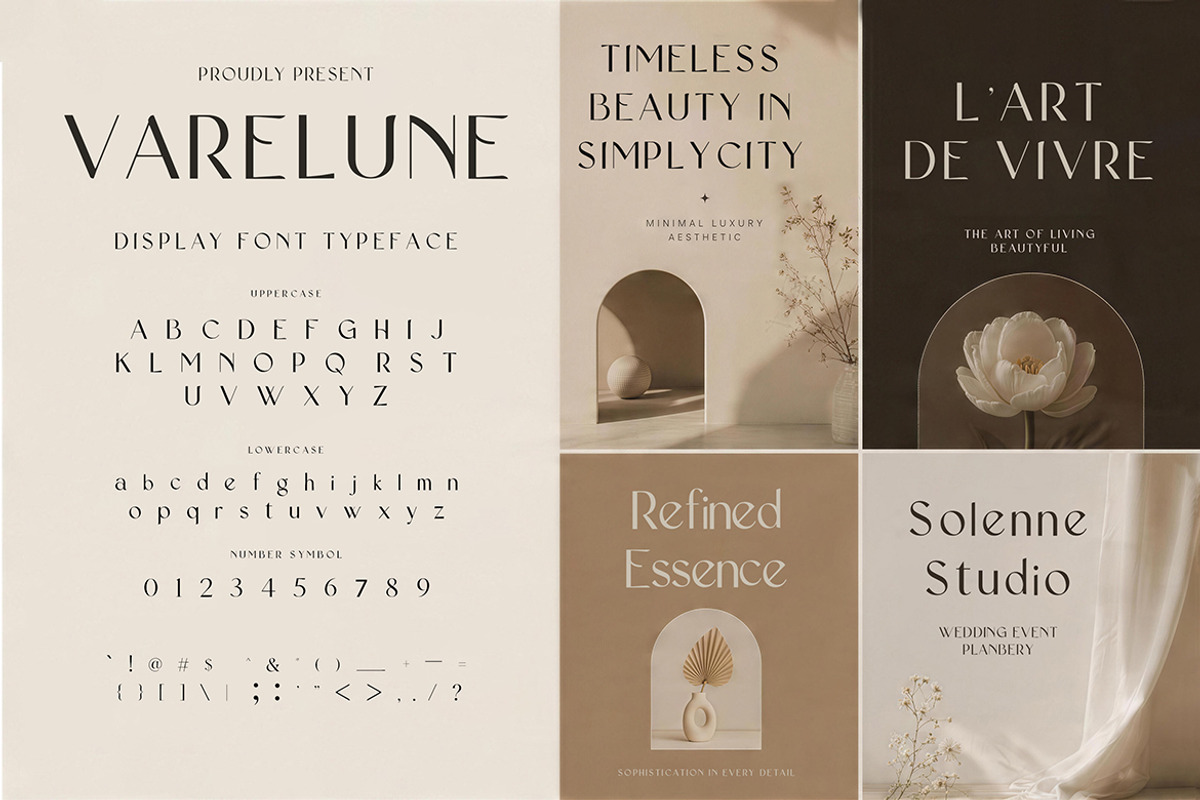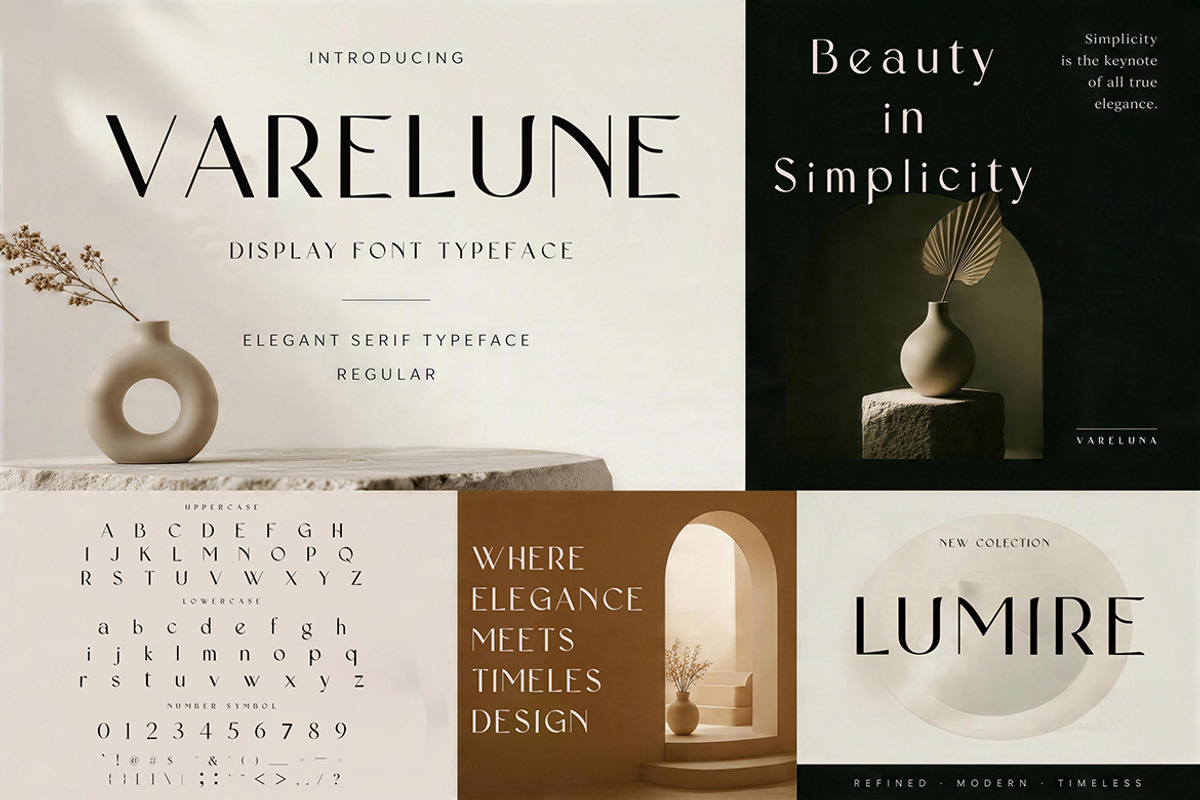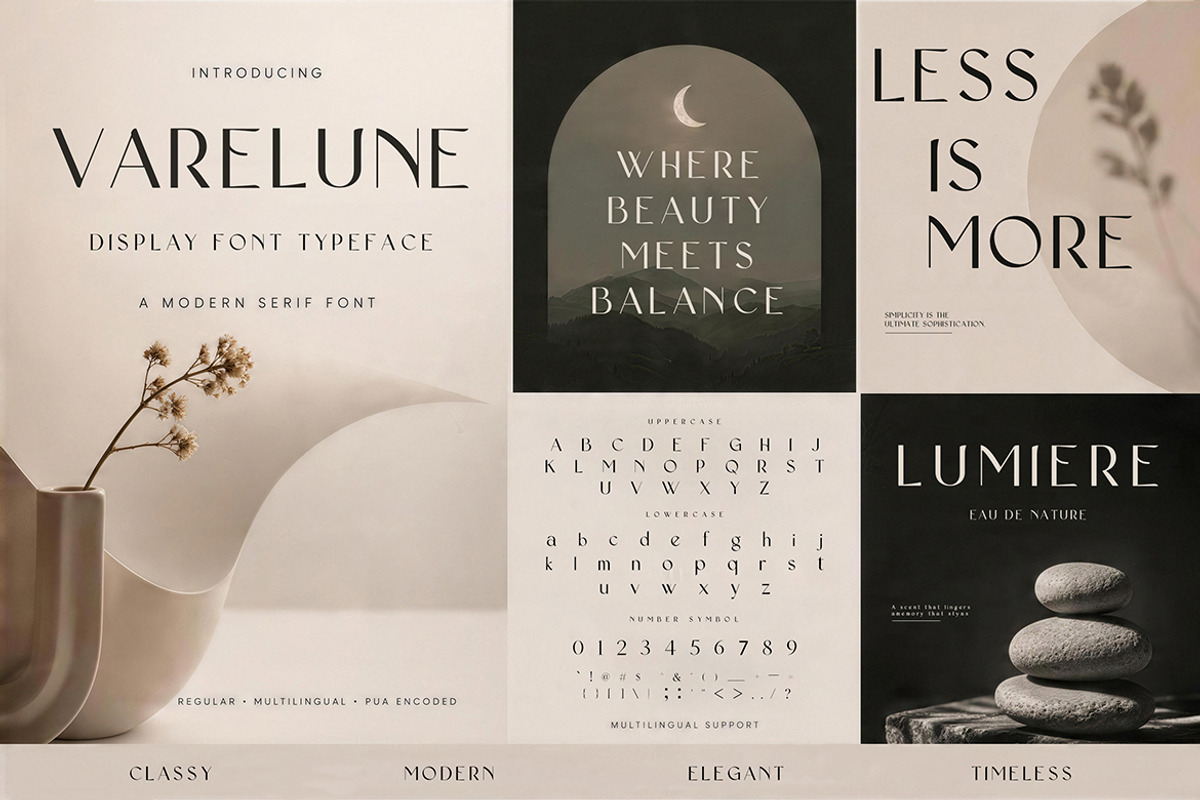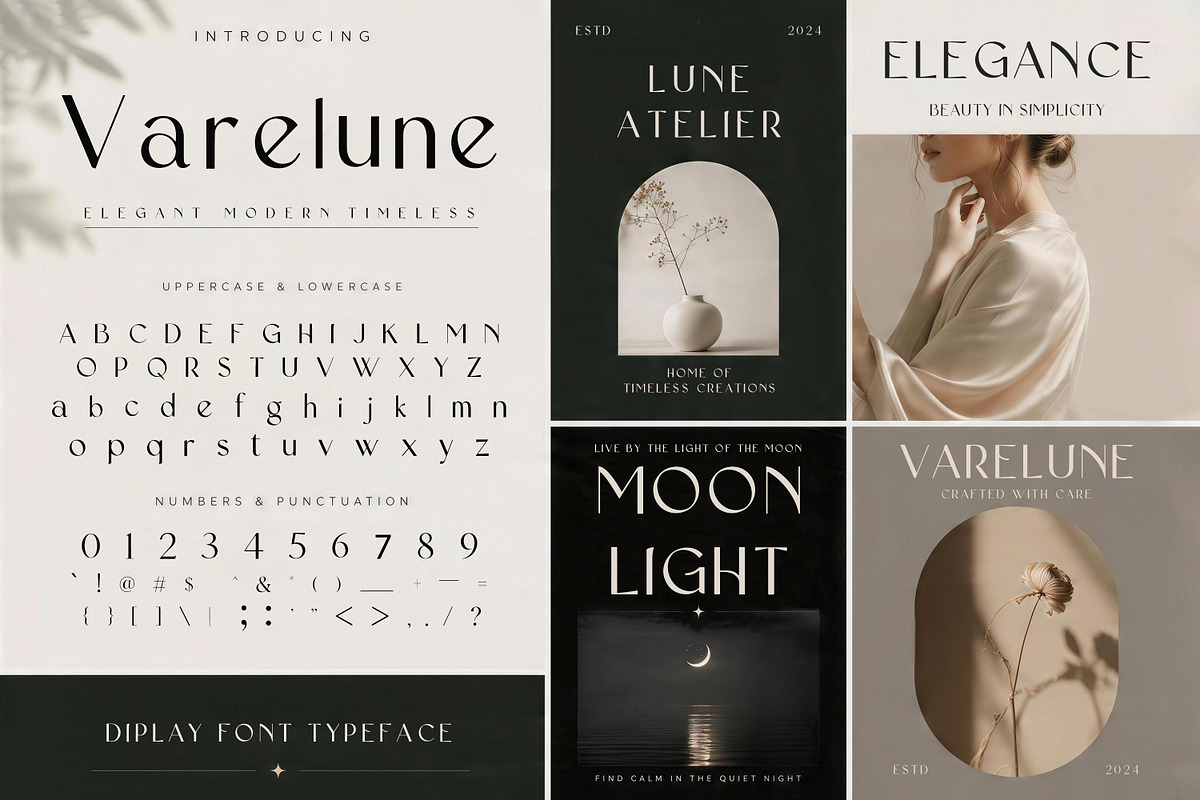
Varelune
Varelune is an elegant modern display typeface that blends timeless sophistication with graceful minimalism. With its refined letterforms, delicate contrast, and clean luxurious appearance, this font is designed to elevate premium visual projects. Inspired by beauty, calm, and simplicity, Varelune delivers a soft yet distinctive presence that works beautifully across branding, editorial design, and high-end promotional materials.
Luxury branding and feminine visual identities
Beauty, skincare, and fashion packaging
Editorial layouts and magazine headlines
Elegant posters, invitations, and quote designs
Boutique branding and social media content
With its elegant structure and timeless aesthetic, Varelune is a perfect choice for designers seeking a stylish display font that feels modern, graceful, and effortlessly premium.